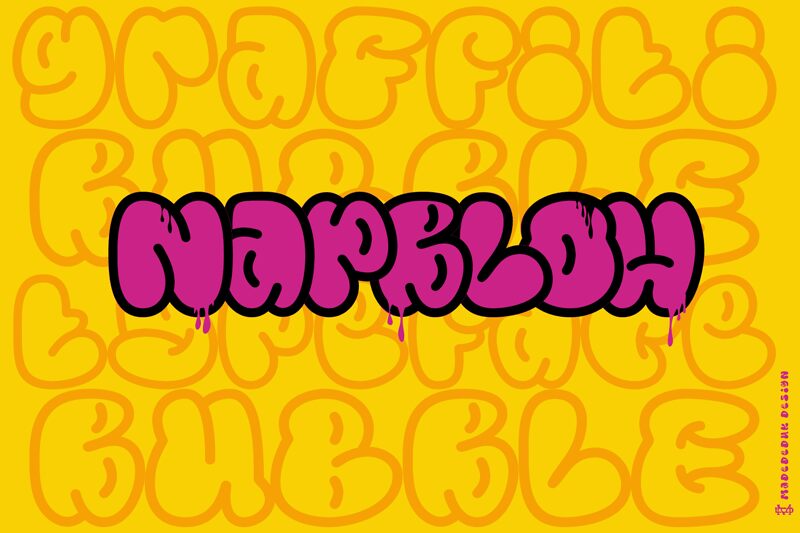
Napblow DEMO
Napblow font, crafted by madeDeduk, is a cartoon display font with outlined elements and a bold weight. It has rounded shapes that create a whimsical feel and casual appearance. This organic aesthetic and contemporary vibe lend a lighthearted tone to your text, making it approachable in all creative designs.
This scary yet fun typeface can be used for all kinds of purposes, including book cover design for kids, Halloween poster creation, brochures or flyers, social media posts or stories such as Instagram posts or stories as well as comic books for children.